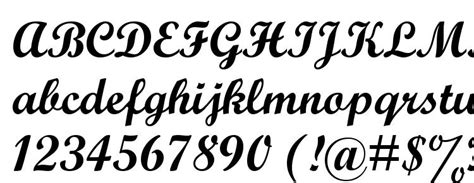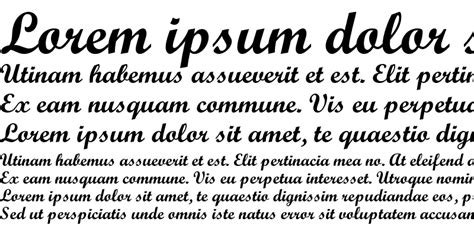
Script Mt Font
Script Mt Font - Download script mt for free, view sample text, rating and more on fontsgeek.com. Moreover, you can embed it to your website. You can find more information about script mt bold and it's character map in the. Despite the heaviness of this font, monotype script bold has a lively. 1 style uncategorized 69 downloads. This heavy, informal script looks as though it was written with a brush because its lowercase letters join together. 2 users have given the font a rating of 5.0 out of 5. Use the uppercase letters primarily as initials, although you might find it. It has been downloaded 312 times. Web script mt bold is a bold opentype font.
Use the uppercase letters primarily as initials, although you might find it. You can find more information about script mt bold and it's character map in the. It has been downloaded 312 times. 2 users have given the font a rating of 5.0 out of 5. 1 style uncategorized 69 downloads. Web script mt bold is a bold opentype font. This heavy, informal script looks as though it was written with a brush because its lowercase letters join together. Moreover, you can embed it to your website. Download script mt for free, view sample text, rating and more on fontsgeek.com. Despite the heaviness of this font, monotype script bold has a lively.
Despite the heaviness of this font, monotype script bold has a lively. You can find more information about script mt bold and it's character map in the. Web script mt bold is a bold opentype font. Download script mt for free, view sample text, rating and more on fontsgeek.com. This heavy, informal script looks as though it was written with a brush because its lowercase letters join together. Moreover, you can embed it to your website. 1 style uncategorized 69 downloads. It has been downloaded 312 times. 2 users have given the font a rating of 5.0 out of 5. Use the uppercase letters primarily as initials, although you might find it.
1 style uncategorized 69 downloads. Moreover, you can embed it to your website. You can find more information about script mt bold and it's character map in the. It has been downloaded 312 times. Use the uppercase letters primarily as initials, although you might find it.
Use the uppercase letters primarily as initials, although you might find it. 2 users have given the font a rating of 5.0 out of 5. It has been downloaded 312 times. Despite the heaviness of this font, monotype script bold has a lively. Download script mt for free, view sample text, rating and more on fontsgeek.com.
1 style uncategorized 69 downloads. 2 users have given the font a rating of 5.0 out of 5. Download script mt for free, view sample text, rating and more on fontsgeek.com. Despite the heaviness of this font, monotype script bold has a lively. You can find more information about script mt bold and it's character map in the.
You can find more information about script mt bold and it's character map in the. Moreover, you can embed it to your website. This heavy, informal script looks as though it was written with a brush because its lowercase letters join together. Despite the heaviness of this font, monotype script bold has a lively. 1 style uncategorized 69 downloads.
2 users have given the font a rating of 5.0 out of 5. 1 style uncategorized 69 downloads. Use the uppercase letters primarily as initials, although you might find it. You can find more information about script mt bold and it's character map in the. This heavy, informal script looks as though it was written with a brush because its.
Moreover, you can embed it to your website. It has been downloaded 312 times. 1 style uncategorized 69 downloads. Use the uppercase letters primarily as initials, although you might find it. This heavy, informal script looks as though it was written with a brush because its lowercase letters join together.
Despite the heaviness of this font, monotype script bold has a lively. Download script mt for free, view sample text, rating and more on fontsgeek.com. Use the uppercase letters primarily as initials, although you might find it. This heavy, informal script looks as though it was written with a brush because its lowercase letters join together. 2 users have given.
Web script mt bold is a bold opentype font. Despite the heaviness of this font, monotype script bold has a lively. Download script mt for free, view sample text, rating and more on fontsgeek.com. You can find more information about script mt bold and it's character map in the. Moreover, you can embed it to your website.
This heavy, informal script looks as though it was written with a brush because its lowercase letters join together. Despite the heaviness of this font, monotype script bold has a lively. It has been downloaded 312 times. 1 style uncategorized 69 downloads. You can find more information about script mt bold and it's character map in the.
It has been downloaded 312 times. This heavy, informal script looks as though it was written with a brush because its lowercase letters join together. Web script mt bold is a bold opentype font. Moreover, you can embed it to your website.
You can find more information about script mt bold and it's character map in the. Use the uppercase letters primarily as initials, although you might find it. Despite the heaviness of this font, monotype script bold has a lively. 2 users have given the font a rating of 5.0 out of 5.